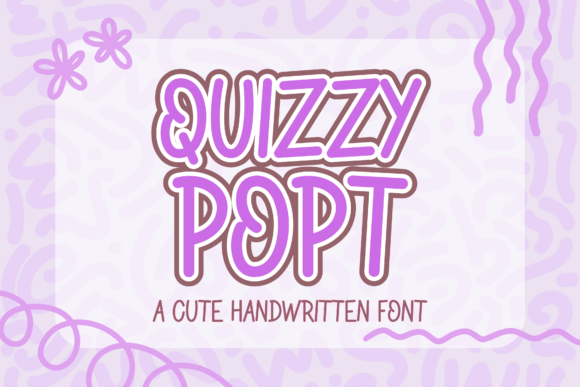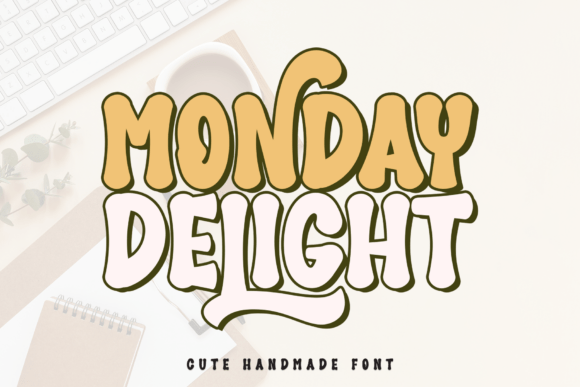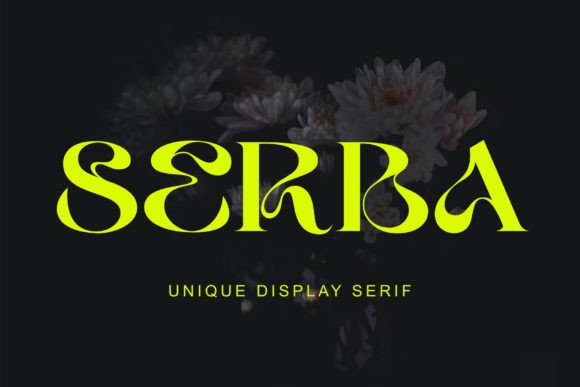
This guide to social media & Canva fonts shows how to pick bold, scroll-stopping display and crisp caption faces for Instagram, TikTok, YouTube and Pinterest – plus quick tests to keep text readable on small screens.
Editor’s top picks – Social Media & Canva Fonts
Thumbnails (Bold Display)
Chunky, high-contrast display for YouTube thumbnails & pin covers – readable at a glance.
Reels / TikTok (Trendy Rounded)
Groovy/rounded faces with smooth edges – great for animated lower-thirds and hooks.
Pins (Thick Script)
Bold scripts for hero words – pair with a clean sans subhead for fast scans in feeds.
Stories (Condensed Sans)
Tall, narrow sans fits long phrases into 1080×1920 while staying crisp.
Captions (Clean Sans)
Neutral sans with open apertures and large x-height – perfect for subtitles and overlays.
Outline / Shadow-ready
Outline/inline faces that pop with Canva’s Shadow or Lift effects – great contrast on busy footage.
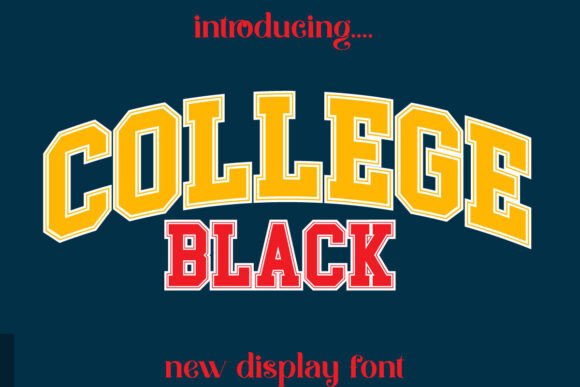
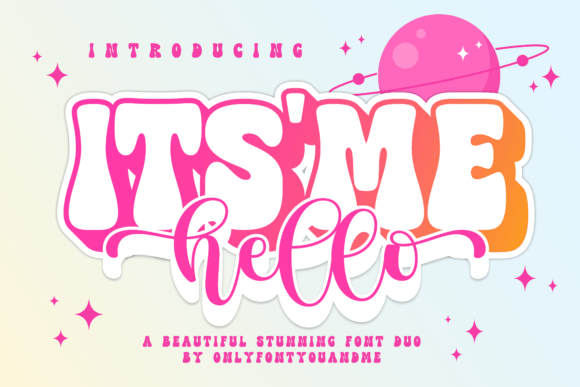
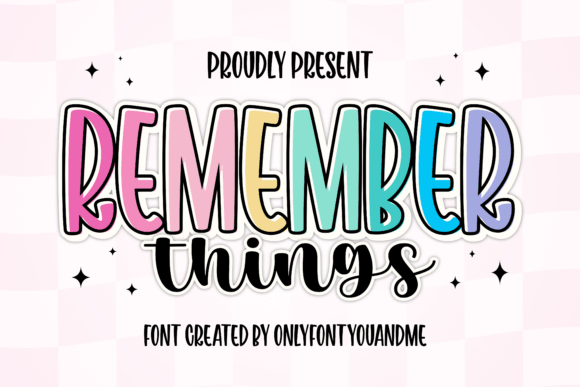
What makes a font “scroll-stopping”?
- High contrast & weight. Thick stems or heavy weights beat noise in busy feeds.
- Large x-height, open forms. Helps tiny text stay readable on phones.
- Condensed options. Squeeze more words on one line without shrinking too small.
- Simplified curves. Fewer details = cleaner render after compression.
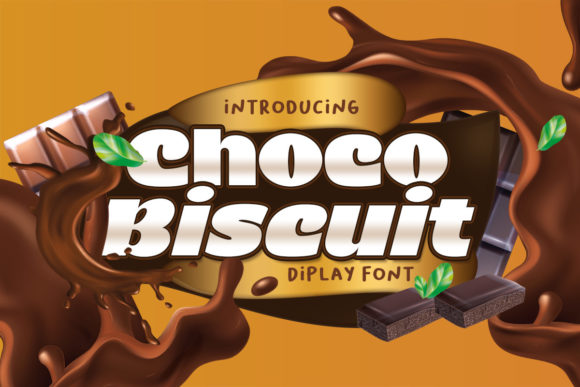
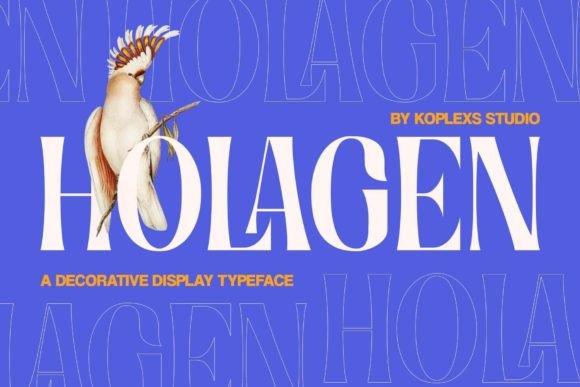
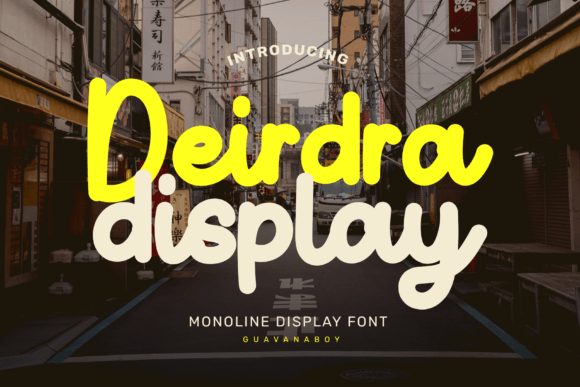
Canva tips (Free vs Pro)
- Letter spacing: for heavy display keep 0–2%; for condensed captions +2–5% improves clarity.
- Effects: add Shadow (low blur, high transparency) or Lift for separation from backgrounds.
- Safe areas: 1080×1920 stories – keep key text away from 120 px top/bottom UI zones.
FAQ
What sizes read well on phones?
Hero words for reels/stories: ~72–110 px; captions/subheads: 40–60 px (depending on weight and contrast).
Best pairing for social graphics?
One bold display for hooks + one clean sans for details. Limit to two fonts total.